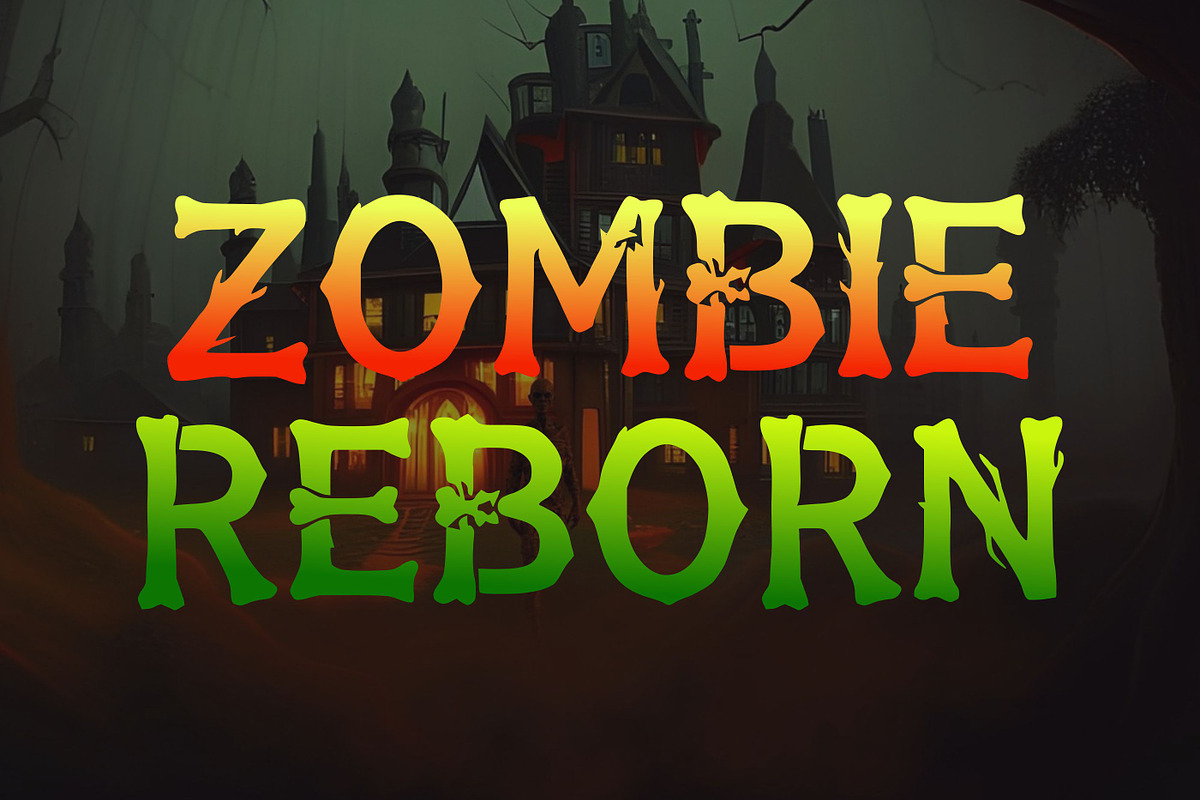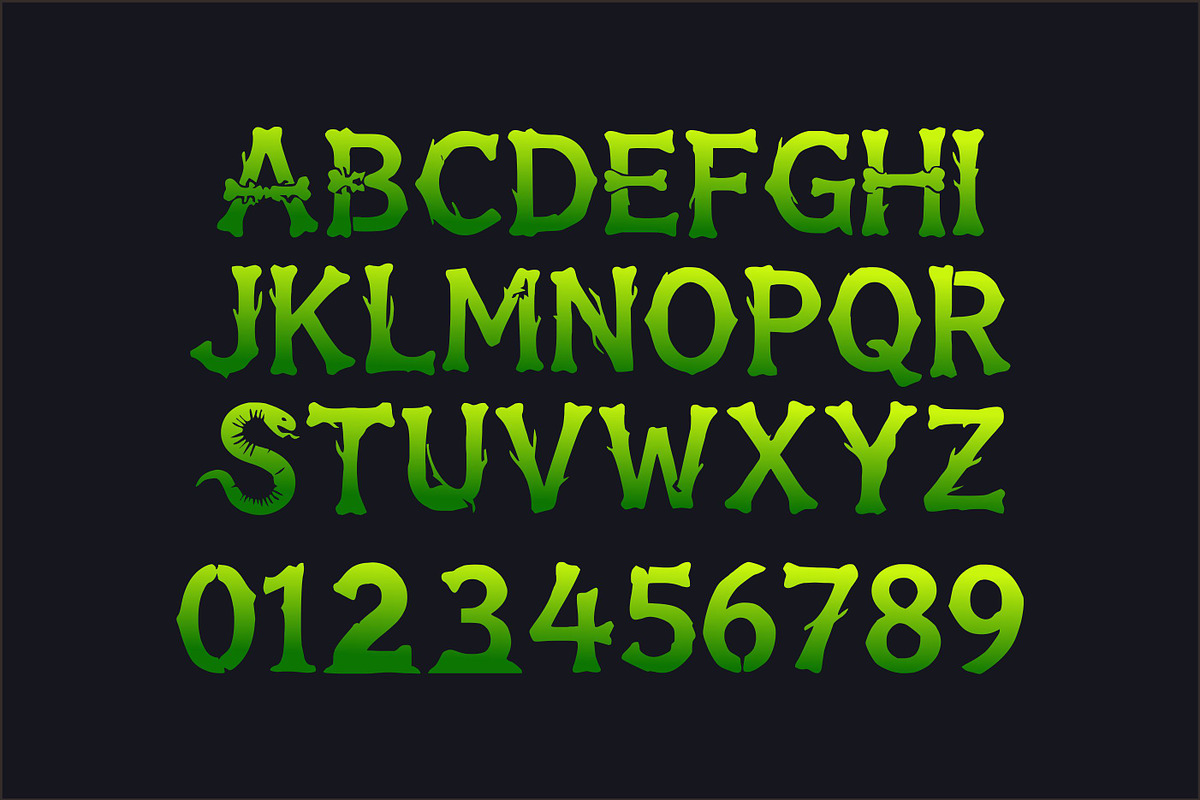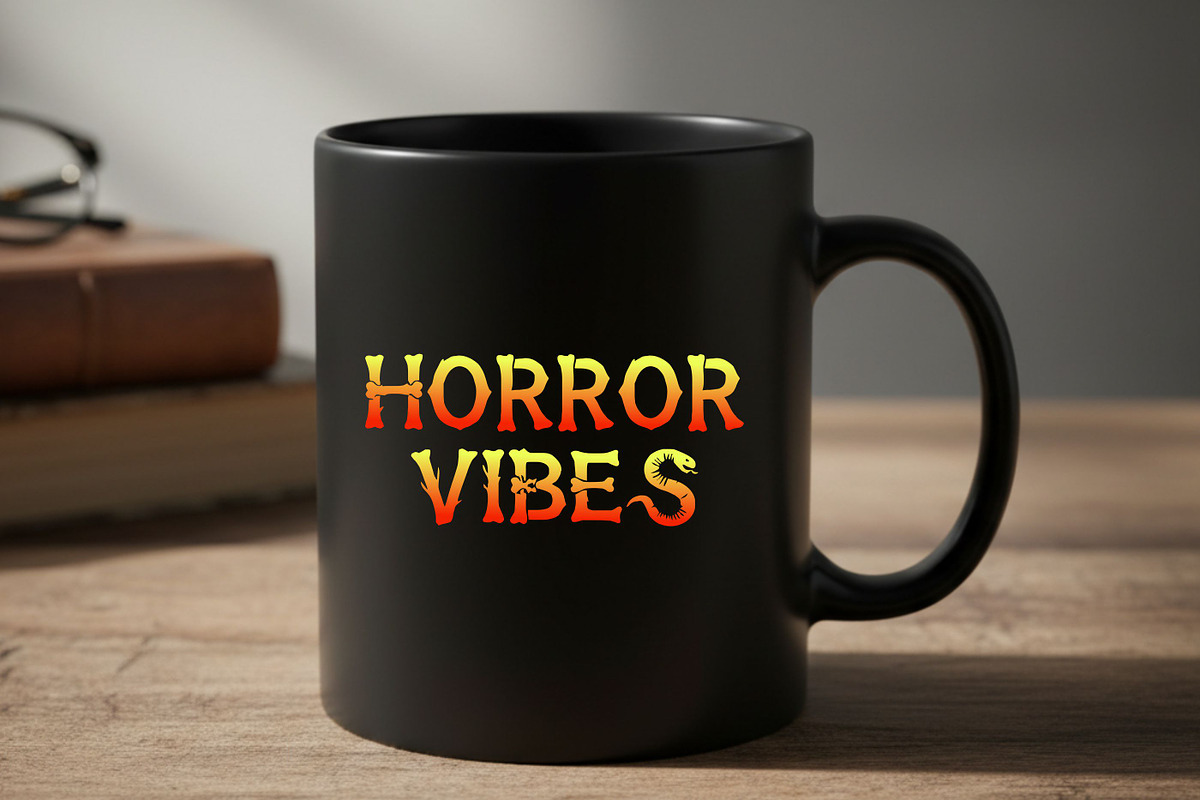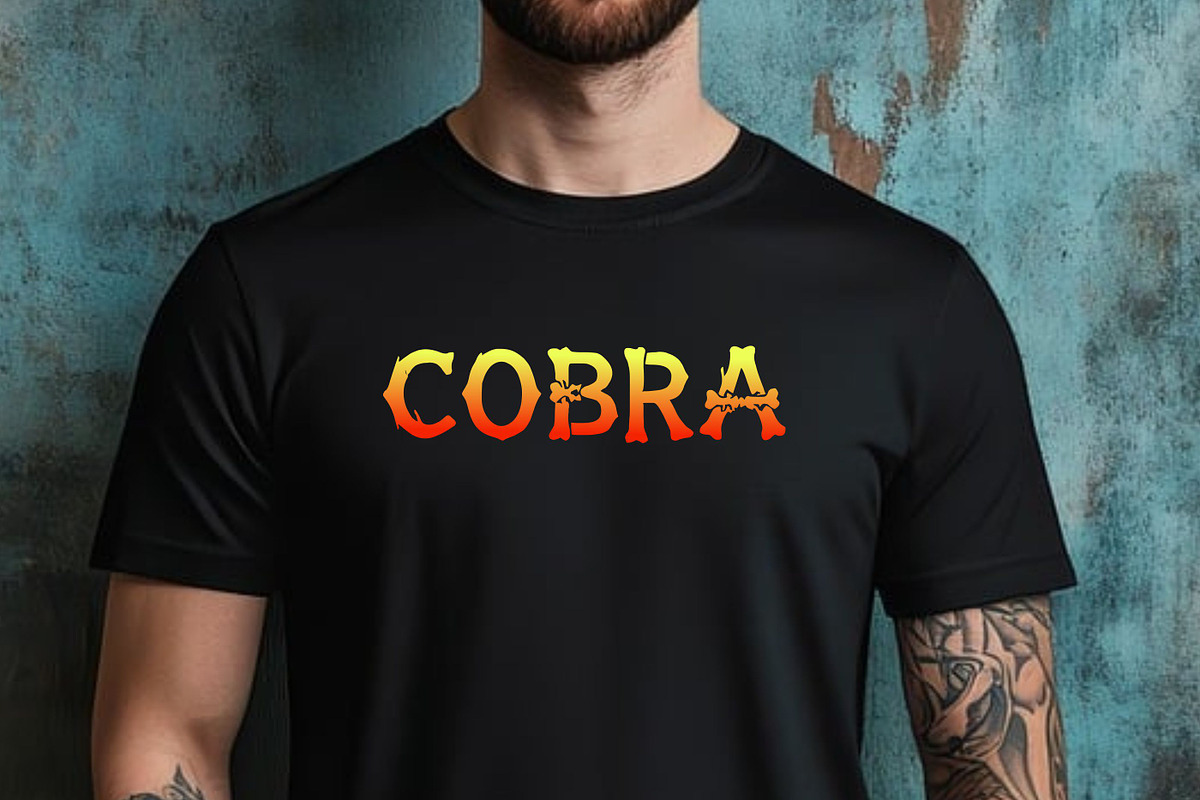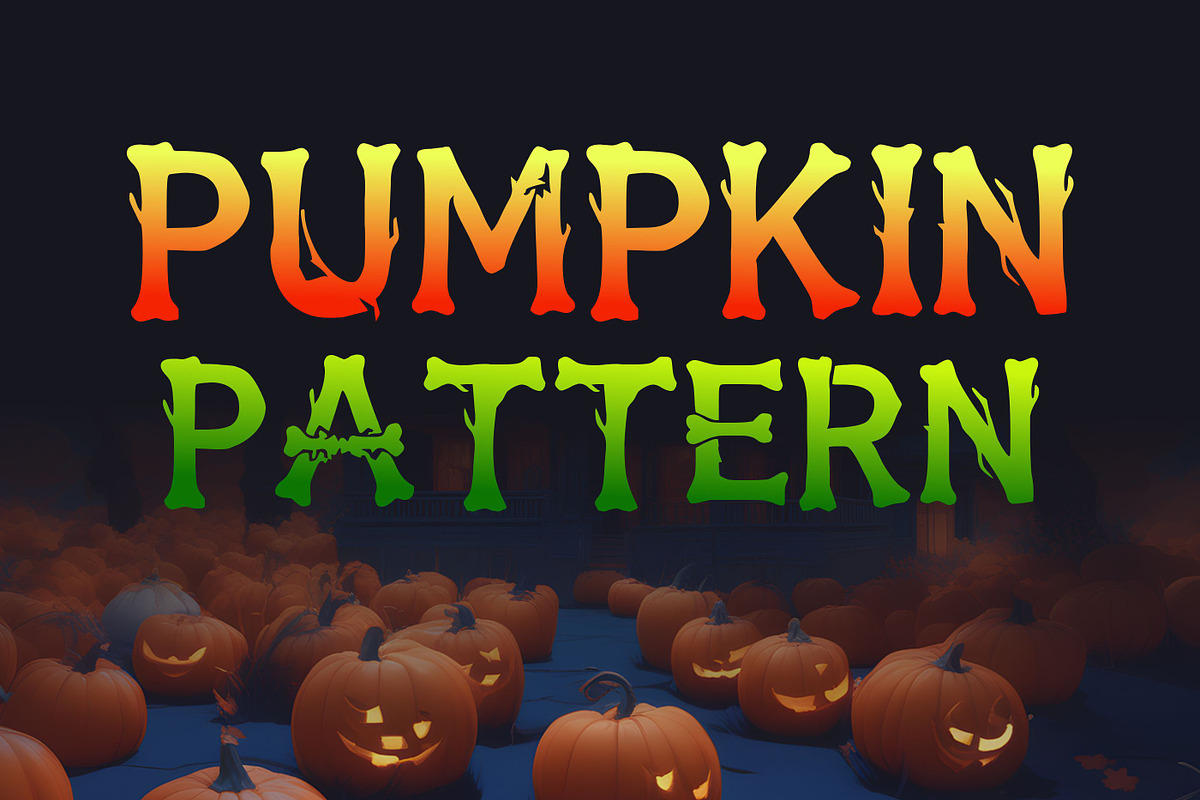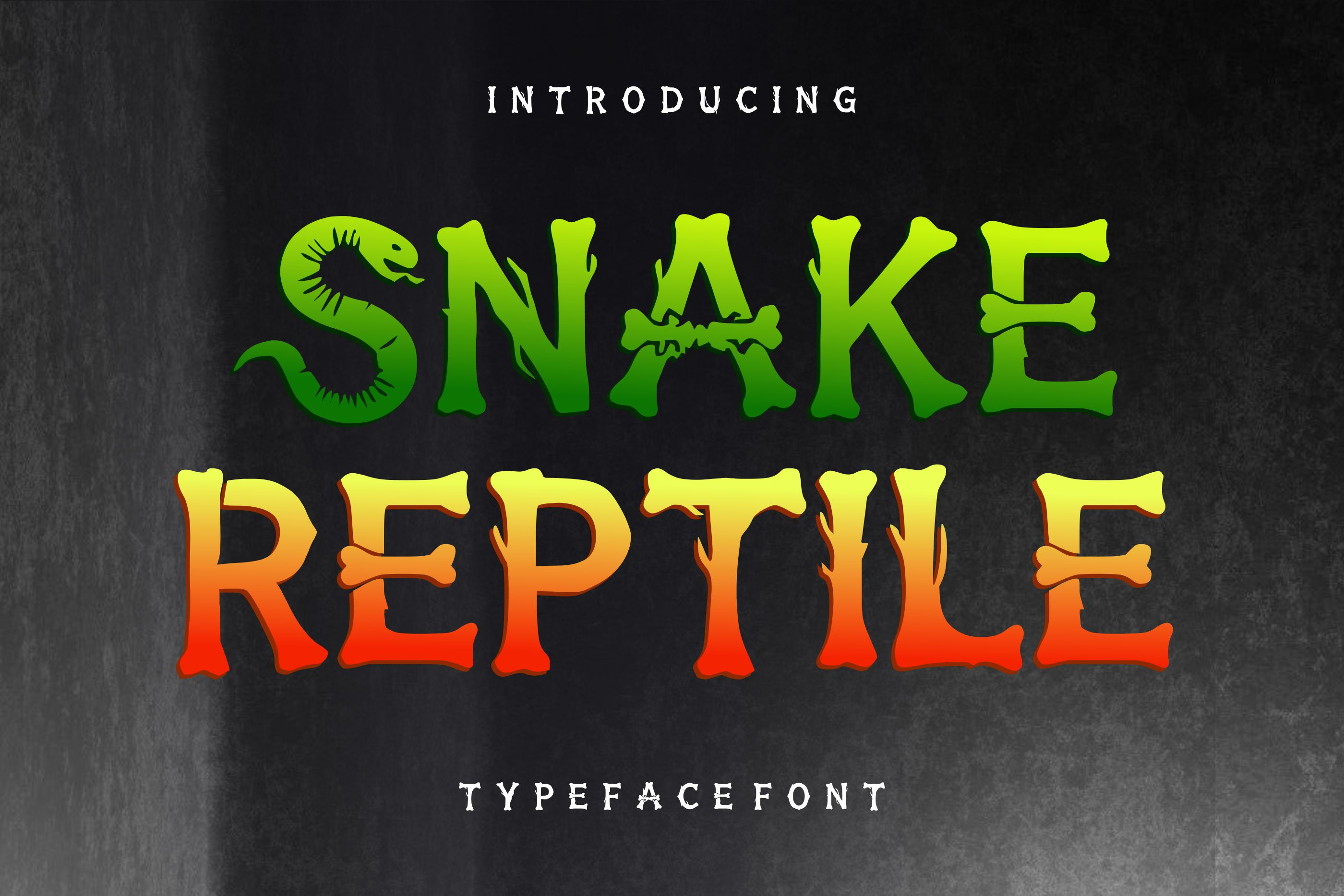
Snake Reptile – Spooky Horror Font
Snake Reptile is a unique spooky display font featuring organic, hand-drawn letterforms inspired by snakes, reptiles, bones, and creepy horror aesthetics. Its bold and playful appearance brings an instantly recognizable dark character to your designs.
This font is perfect for Halloween projects, horror posters, haunted house graphics, T-shirt designs, merchandise, gaming artwork, logos, album covers, stickers, packaging, social media graphics, and other eye-catching display projects.
With its dramatic shapes and creepy decorative details, Snake Reptile works especially well for designs that need a wild, mysterious, scary, and unconventional look.
Halloween designs
Horror posters
T-shirt and apparel designs
Logos and branding
Gaming graphics
Album and music artwork
Posters and flyers
Stickers and merchandise
Book and cover designs
Packaging and labels
Haunted house promotions
Children's spooky-themed artwork
Recommended Use: Best suited for headlines, logos, posters, merchandise, apparel, packaging, branding, titles, and other large-scale display applications.